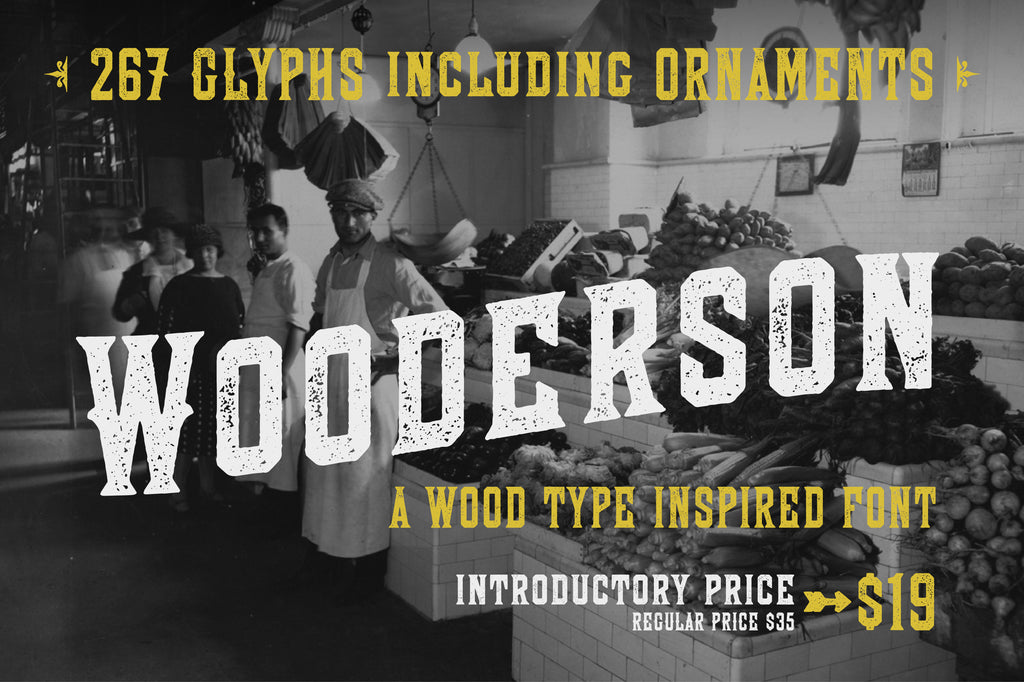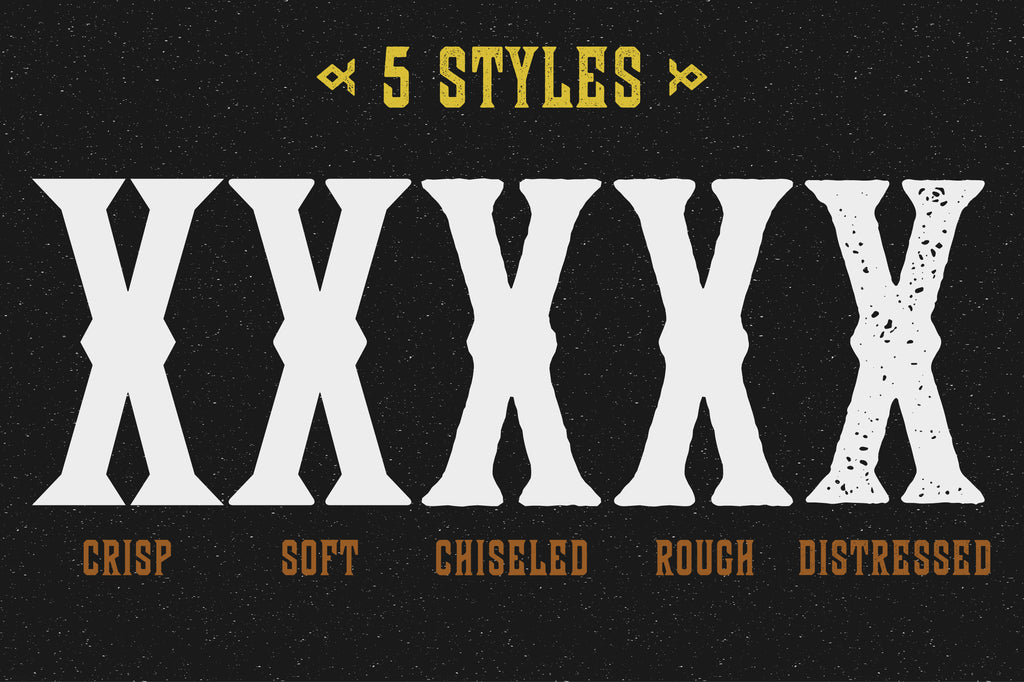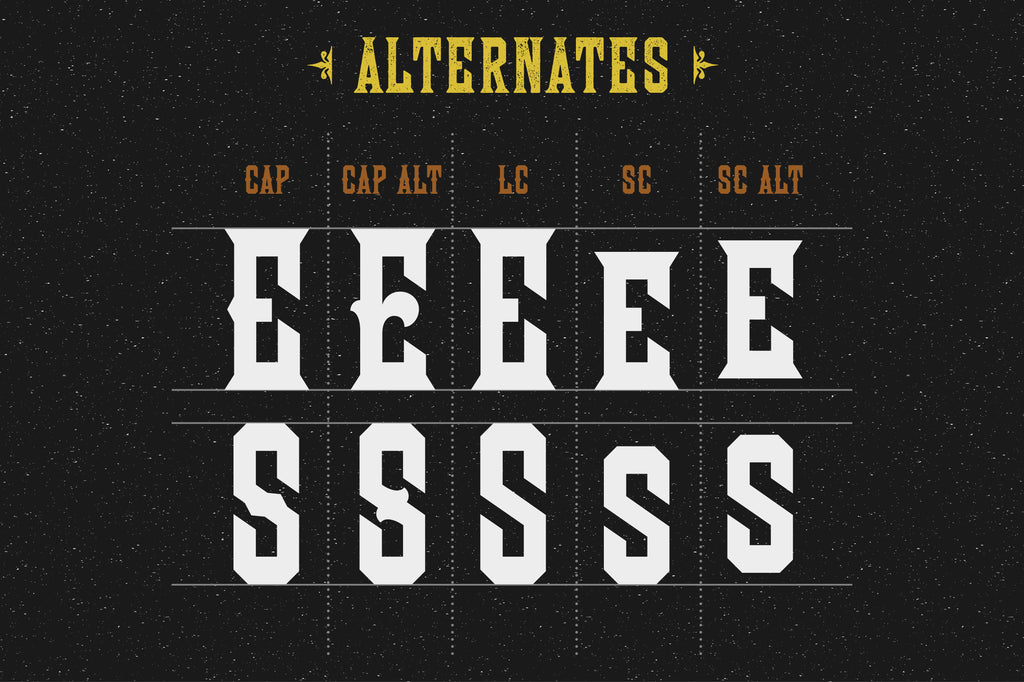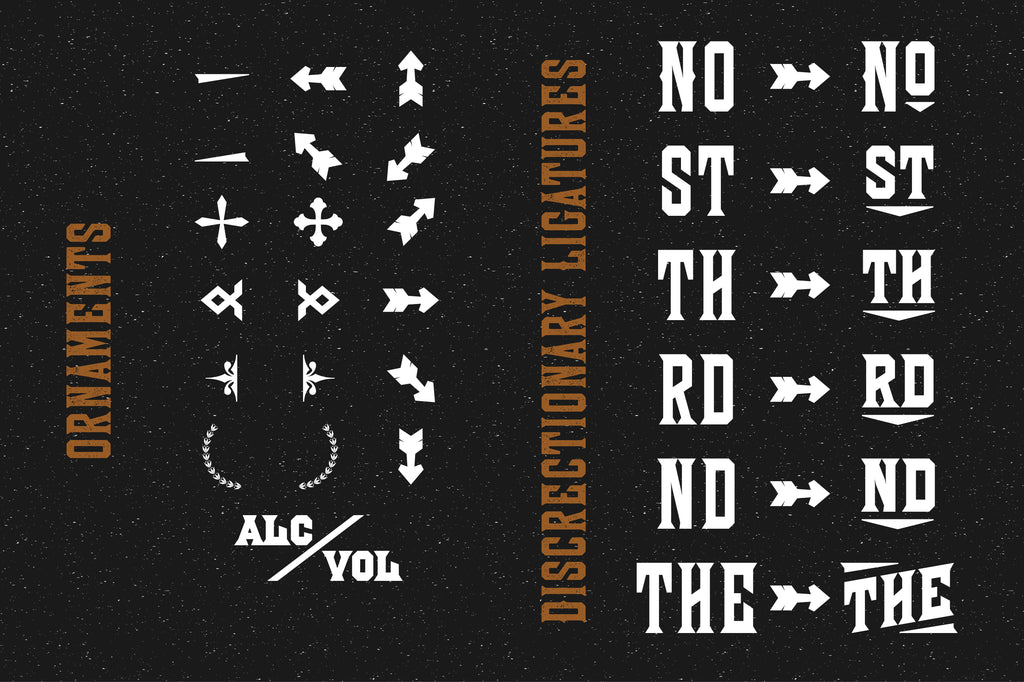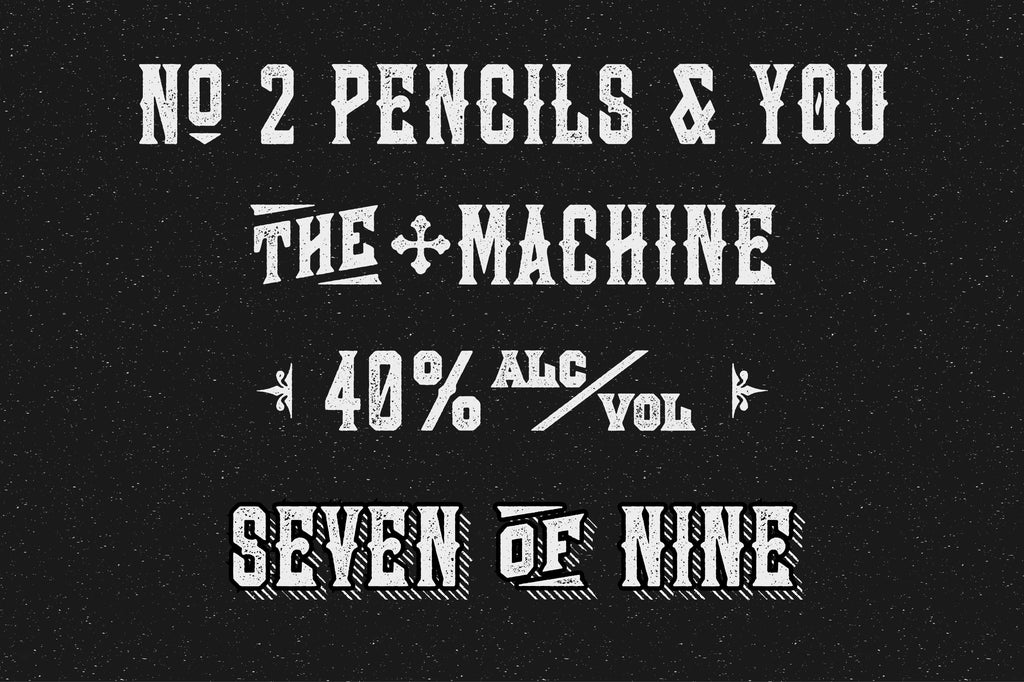
Wooderson: A Woodblock Typeface
Wooderson is a typeface based on some old wood block type. 267 handcrafted glyphs obsessed over, redrawn, and updated for the new world.
This typeface feature five styles: • Crisp for sharp lines or DIYers. • Soft for those of you who dislike pointy things. • Chiseled if angular roughness suits your fancy. • Rough for those of you who want a smoothed out roughness. • Finally Distressed for when you just ain't got the time to fiddle with all that distressing on your own.
- A handful of ornaments
- Alternate style caps
- Small caps
- Alternate small caps
- Discretionary ligatures to snazzify a few abbreviations and those pesky short words that just get in the way.